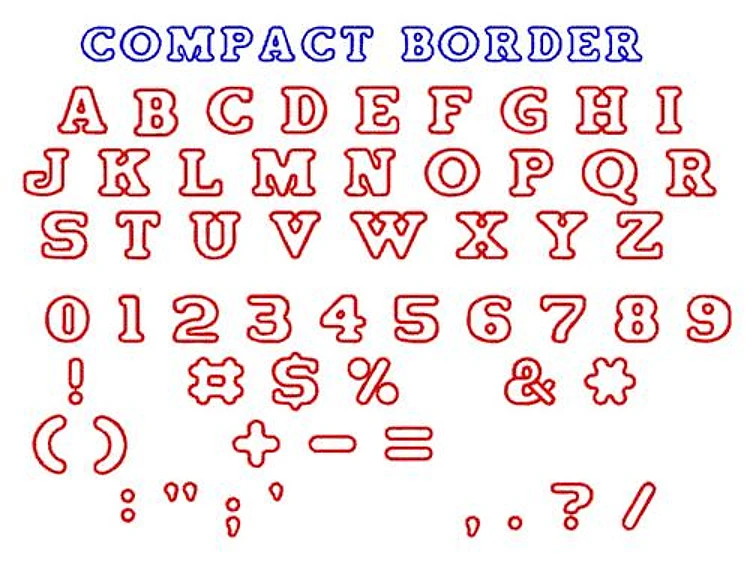
Compact Border Embrilliance Embroidery Font - Bold Block Style with Outline Technique - BX font by Internet Stitch and other embroidery fonts available at EmbroideryDesigns.com.
Internet Stitch is happy to present Compact Border Embrilliance Embroidery Font - Bold Block Style with Outline Technique - BX font machine embroidery font which has Bold block style machine embroidery font with a defined outline, ideal for application on jackets and banners. 'COMPACT BORDER' is showcased in blue, available in BX font and Embrilliance formats. included. If you would like to view more embroidery fonts and alphabets please search our embroidery fonts page.
Compact Border Embrilliance Embroidery Font - Bold Block Style with Outline Technique - BX font